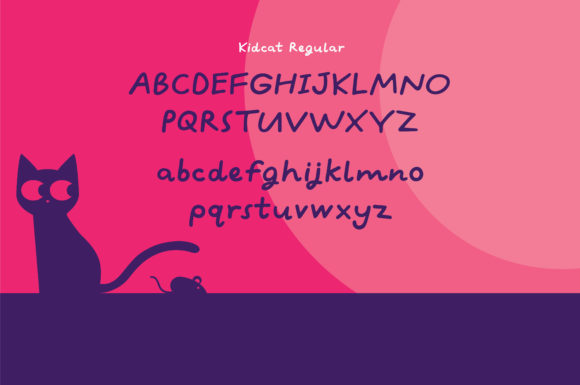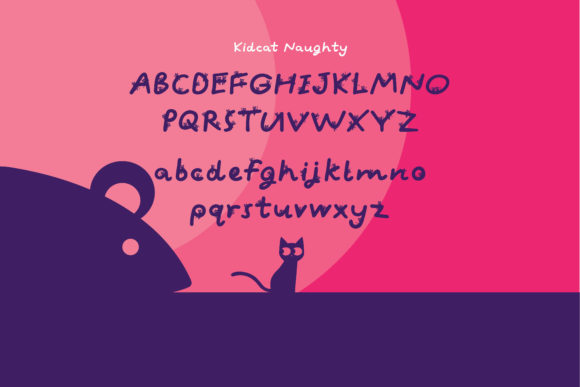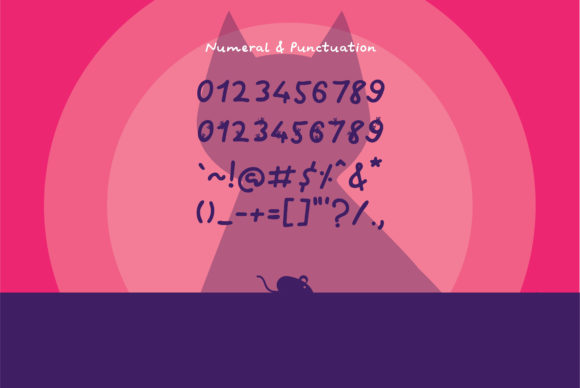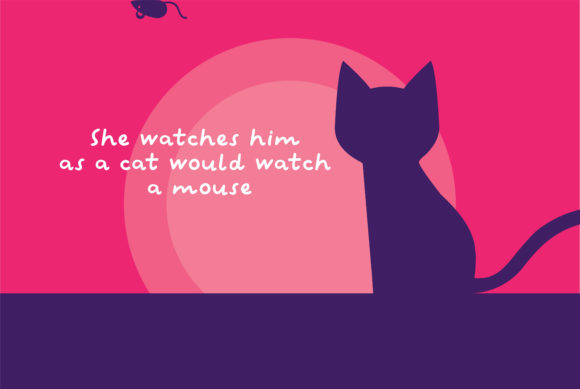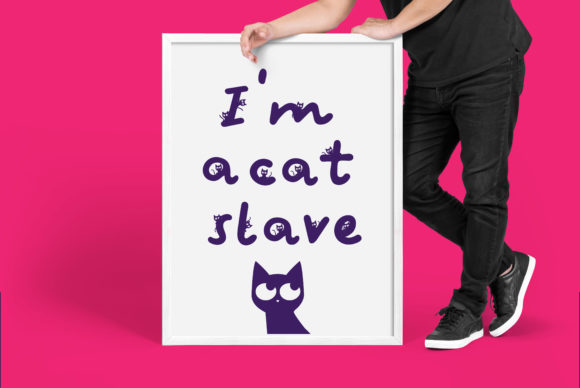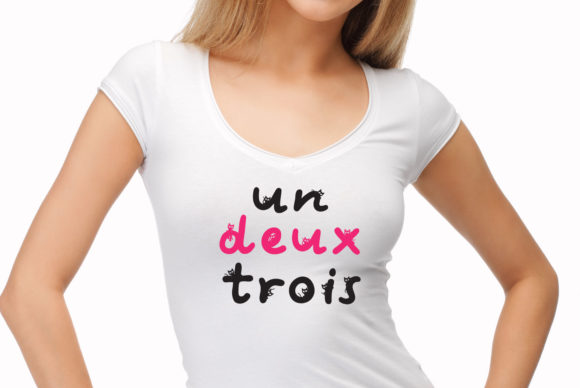
Introduction to Kidcat Font
Have you ever found yourself lost in a creative moment, pouring over design ideas and searching for the perfect font to bring your vision to life? It’s a feeling many designers know all too well. For cat lovers, the quest for the purr-fect font can be especially challenging. But fear not, fellow feline fanatics, because we’ve got just the thing to satisfy your design cravings.
Meet Kidcat Font, a high-quality, free download that’s sure to add a touch of whimsy and personality to any creative project. With its transparent background and adorable design, Kidcat Font is the perfect design resource for cat enthusiasts looking to elevate their branding, social media graphics, or any other visual project.
Key Features of Kidcat Font
- High-quality design resource for creative projects, suitable for various digital applications.
- Transparent background, allowing for easy layering and customization in design software.
- Optimized for high-resolution displays, ensuring crisp and clear text rendering at 300 DPI.
- Includes a range of glyphs and characters, making it a versatile font for various design needs.
- Perfect for designers working on kids’ educational materials, children’s books, and other creative projects.
Honest Review: Kidcat Font
As a designer, I’m always on the lookout for high-quality design resources that can elevate my creative projects. Recently, I came across the Kidcat Font, and I was excited to give it a try.
Here are the things that work well with the Kidcat Font: ✨
- High-quality design: The Kidcat Font has a unique, playful feel that’s perfect for kids’ projects or creative campaigns.
- Transparent background: This feature makes it easy to overlay the font on images or use it as a standalone design element.
- Wide compatibility: The font works well across various platforms and devices, making it a great choice for multi-channel campaigns.
- Limited character set: The font only includes a limited number of characters, which may not be suitable for longer text-based projects.
- No bold or italic variations: While the font has a playful feel, it’s not available in bold or italic versions, which may limit its use in certain contexts.
Overall, I’m impressed with the Kidcat Font’s unique design and high-quality feel. While it has some limitations, it’s a great choice for designers looking for a free, creative resource to elevate their projects.
Tips for Getting the Most Out of Kidcat Font
For optimal results, use the Kidcat Font in combination with other high-quality design elements. Experiment with different font sizes, colors, and effects to create a unique and eye-catching design.
The Kidcat Font is ideal for use in creative projects such as logos, business cards, and social media graphics. It’s also great for adding a playful touch to children’s party invitations and educational materials.
Does the Kidcat Font have a transparent background?
Yes, the Kidcat Font has a transparent background, making it ideal for use on various backgrounds and design elements. This feature allows you to easily composite the font with other design elements, such as images or shapes, to create a high-quality and visually appealing design.